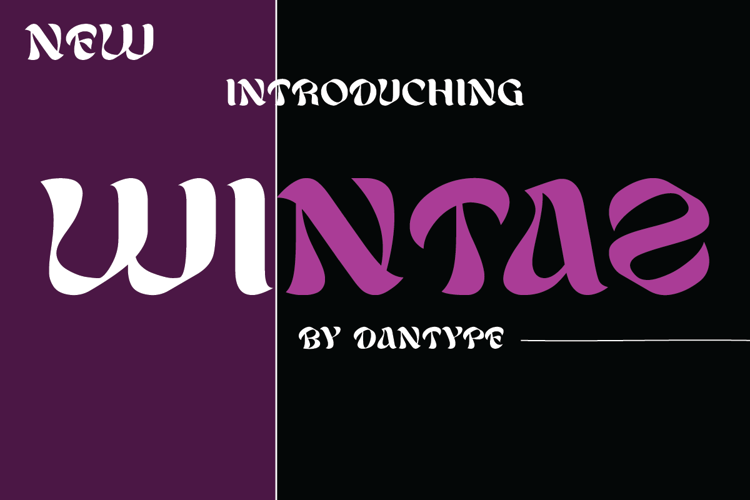
Wintaz Font
Wintaz Font is a Psychedelic font and was created on . Wintaz Font has been downloaded 325 times, added to 8 collections, and liked 2 times.